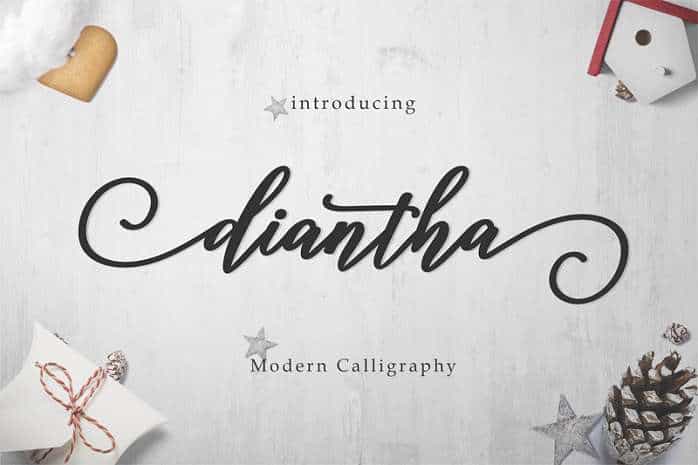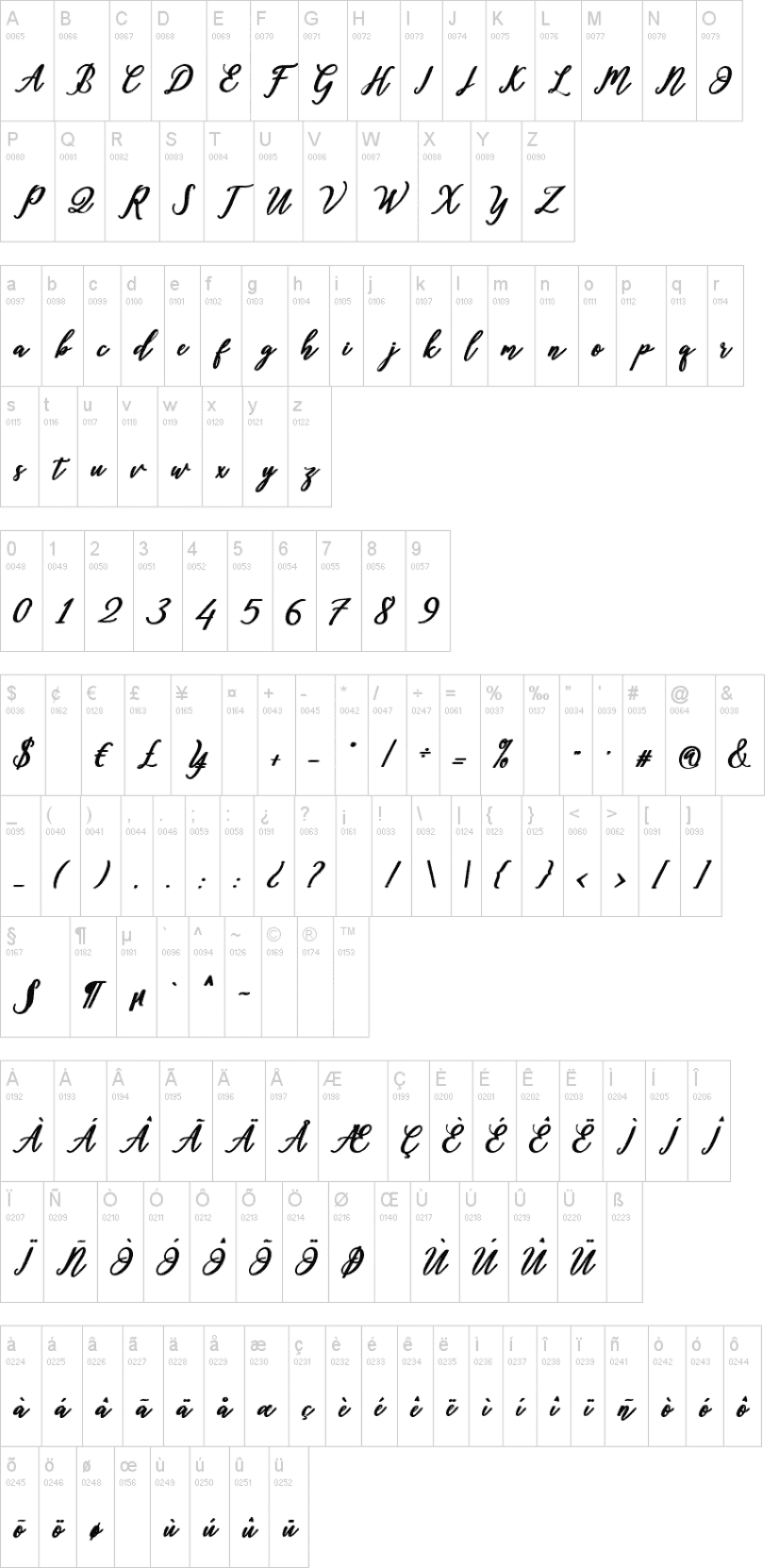
Discover Diantha Font, part of the Calligraphy collection—a versatile and unique font perfect for adding a personal touch to your projects. Download it for free and enjoy crafting designs with style, from invitations to social media posts. This font is available exclusively for personal use, giving you the freedom to create without limits. Unlock your creativity with Diantha Font today!
Diantha is a professional Calligraphy font that is created by the Amar Lettering font type. Diantha script come with 300+ glyphs included. The other characters used in the font were categorized into several Open Type features such as; Swash, Stylistic sets, Stylistic alternates, Contextual alternates.